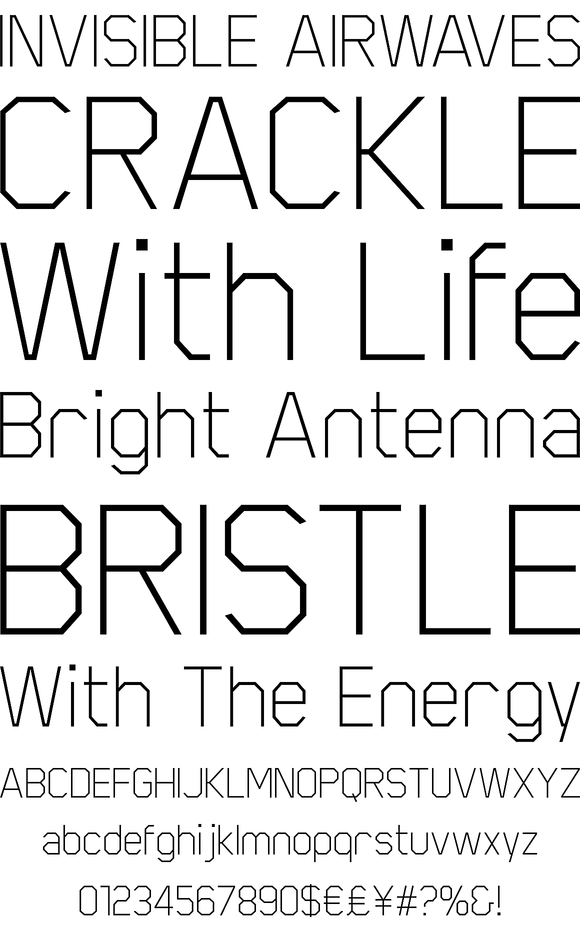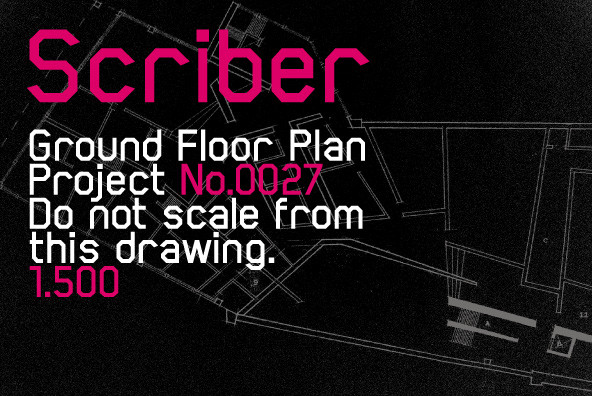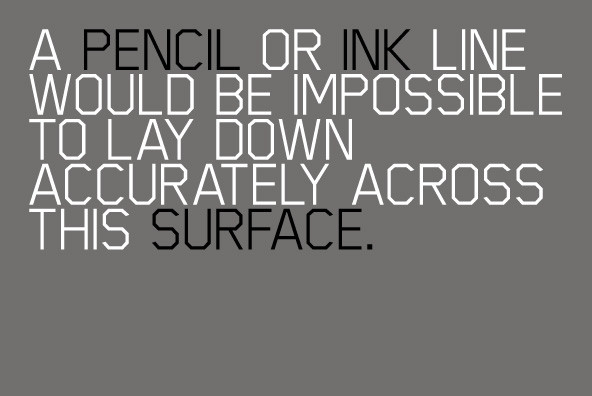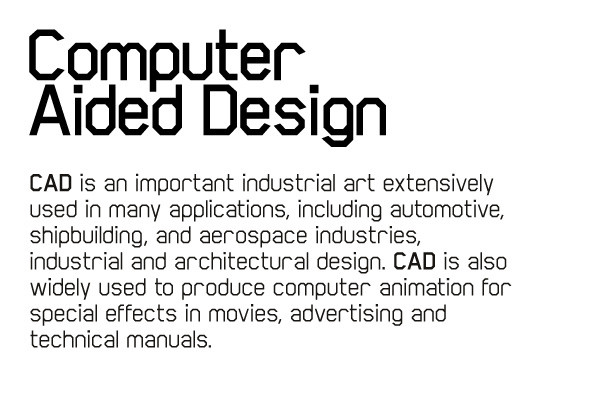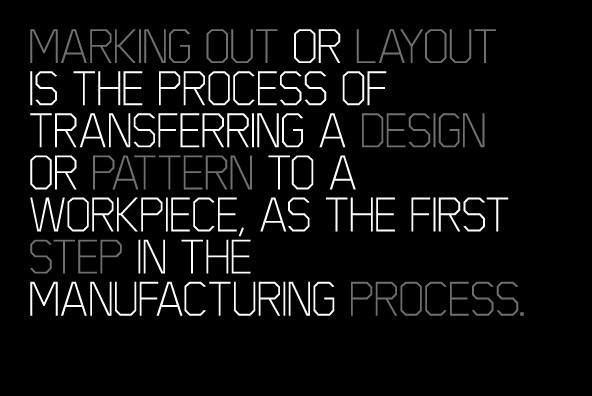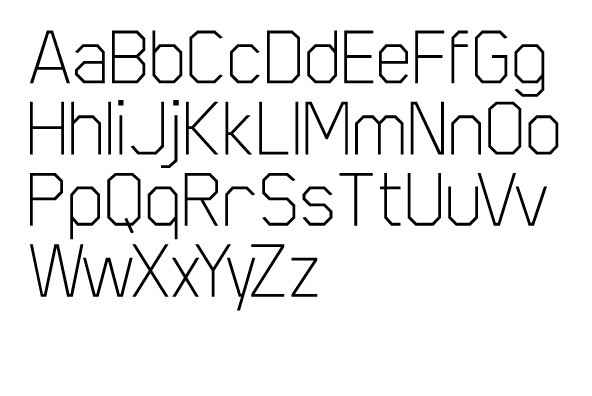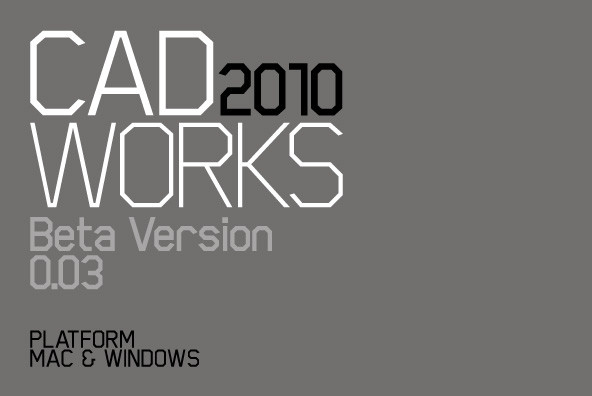
Scriber
A technical square edged font influenced by modern architecture and computer aided design. Details include 8 weights, complete character set, manual kerning and Euro symbol.